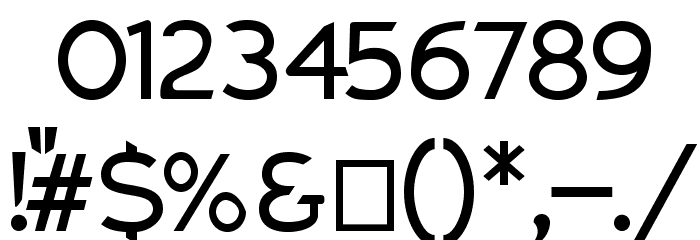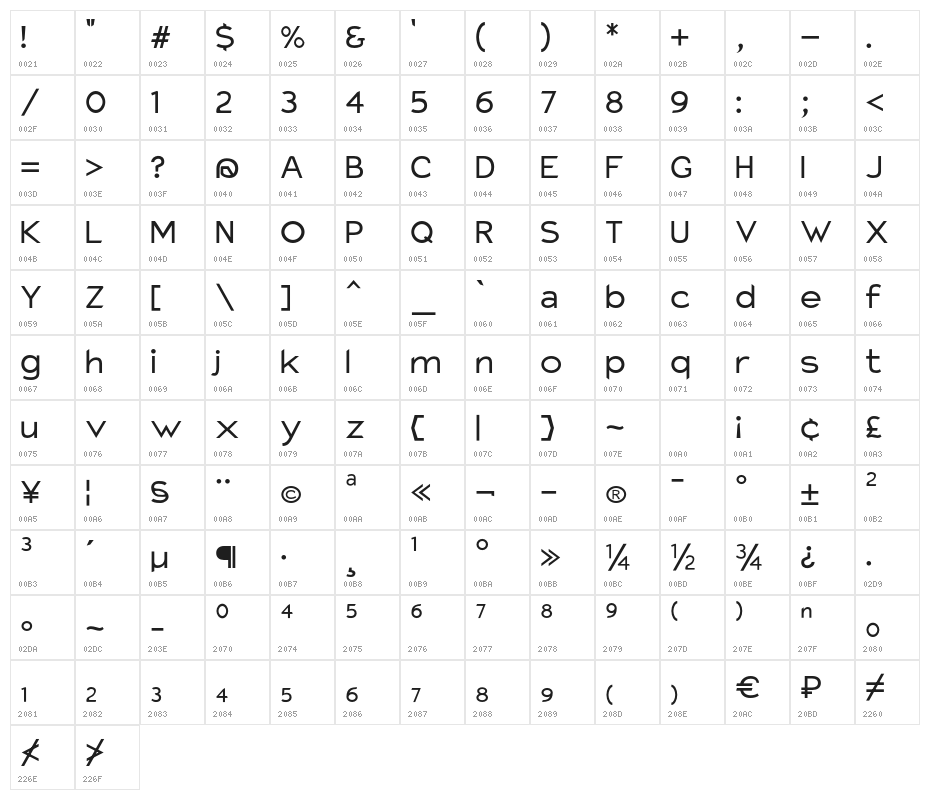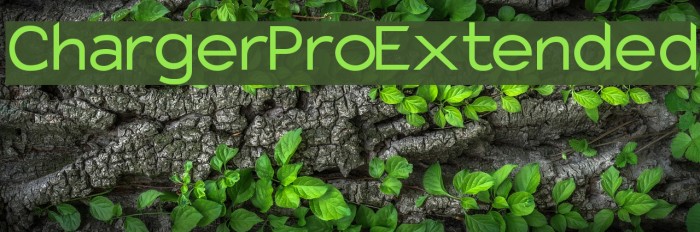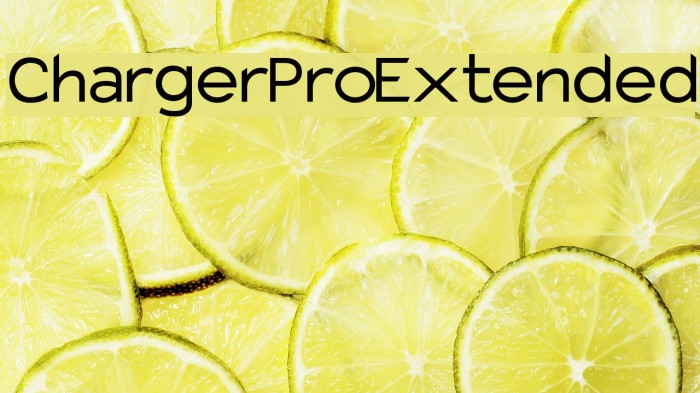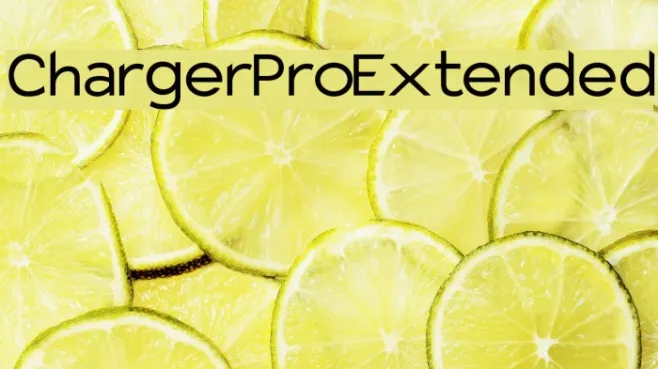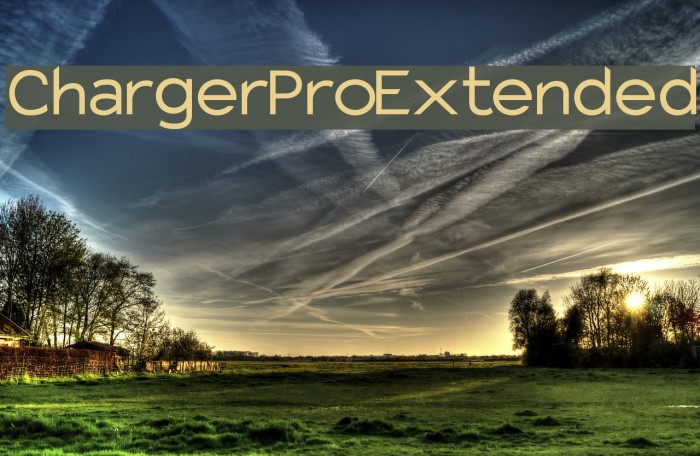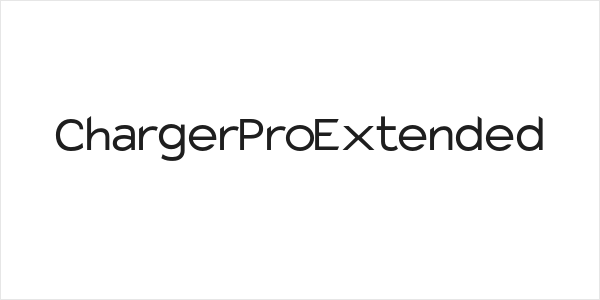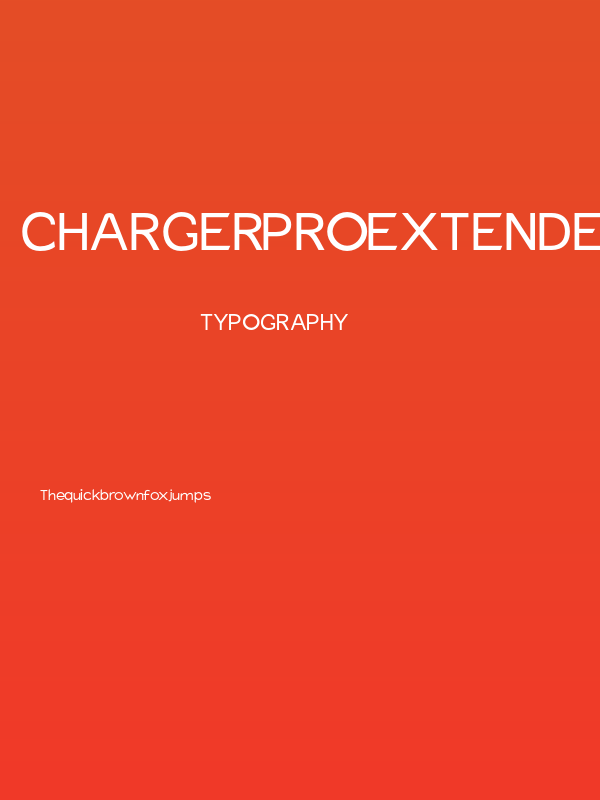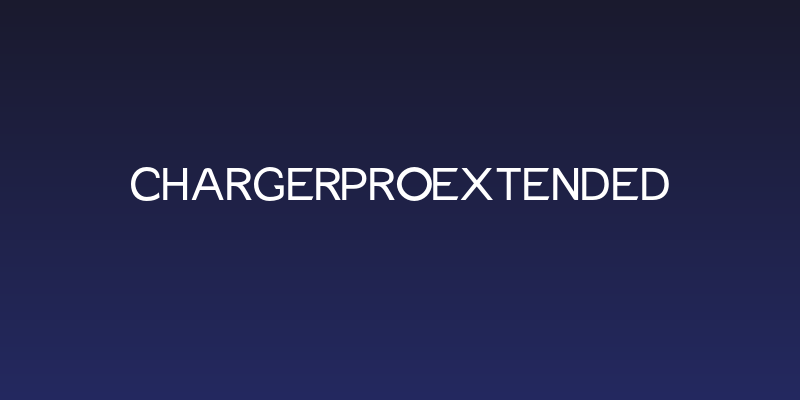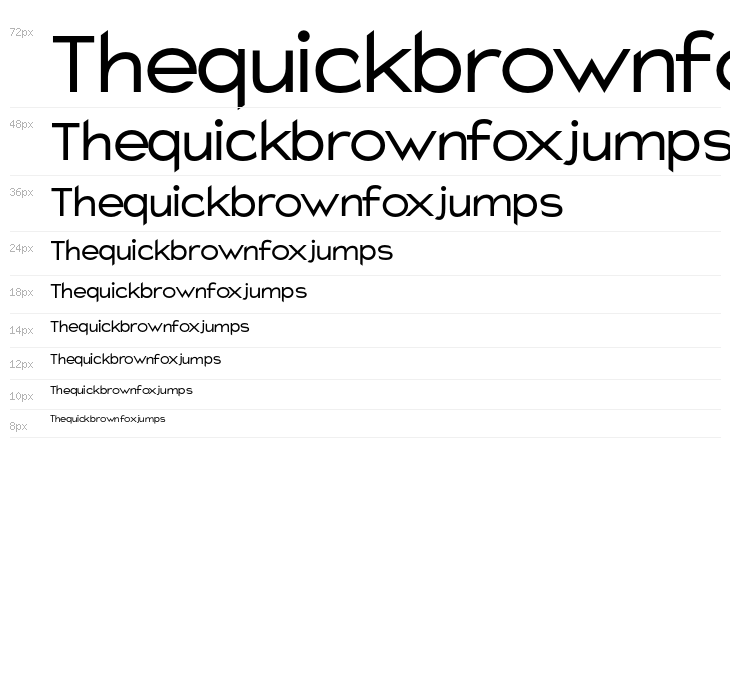
Charger Pro Extended Font
Charger Pro Extended Description
This font features a clean and modern sans-serif design with a geometric structure. The characters are well-balanced, offering a uniform appearance that is both professional and approachable. The uppercase letters are bold and assertive, while the lowercase letters maintain a friendly and open feel. The numerals are clear and easy to read, making them suitable for various applications. Special characters are distinct and well-integrated, enhancing the font's versatility. The overall design is sleek and contemporary, making it ideal for digital and print media.